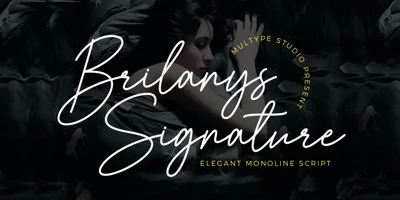
Brilanys Signature Font
Brilanys Signature Font is perfect for luxury fashion branding, elegant wedding invitations, personal logo design, high-end beauty product packaging, boutique hotel signage, exclusive event announcements, sophisticated business cards, premium stationery design, artistic social media graphics, and personalized branding projects. This sophisticated typeface brings handwritten elegance and personal authenticity to designs requiring exclusive and refined aesthetics.
What makes Brilanys Signature Font exciting is its exquisite combination of handwritten authenticity and luxurious sophistication that creates instant personal connection. The font features flowing script letterforms with natural variations and elegant flourishes that mimic the beauty of a carefully crafted signature. Its refined calligraphic elements communicate exclusivity, personal touch, and premium quality, making it perfect for brands seeking to establish intimate relationships with discerning clients who value personalized experiences and artisanal craftsmanship.
Brilanys Signature Font comes in elegant font families including Regular, Bold, Light, Ornamental, Swash, and Decorative variations. Each family member captures the signature script appeal while providing different stylistic approaches to accommodate various luxury design needs, from subtle personal touches to elaborate calligraphic statements that showcase premium brand positioning.
Whether you're designing for luxury markets or creating personalized brand experiences, Brilanys Signature Font offers the perfect blend of handwritten charm and sophisticated elegance. The font's signature character and luxurious appeal make it an excellent choice for designers working on exclusive projects that need to communicate personal attention, premium quality, and refined taste through typography that celebrates individual style and authentic human connection.